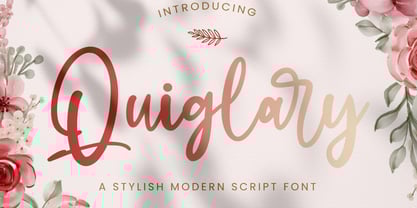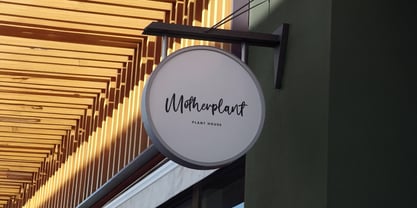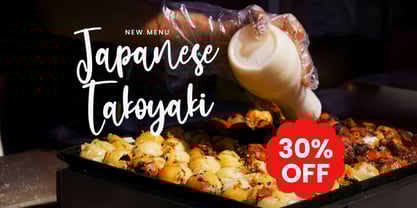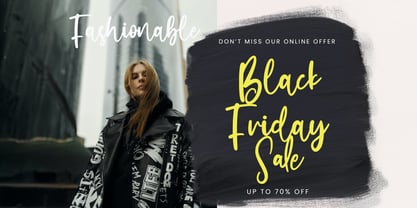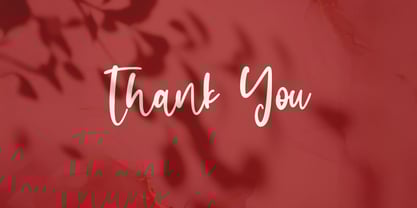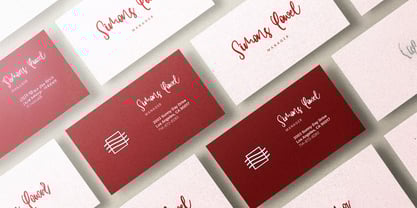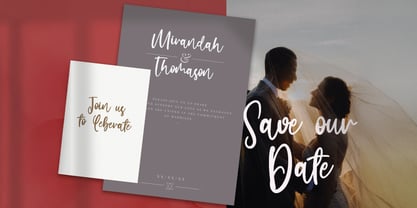
The Quiglary Font Family was designed by Virgiawan Listanto and published by Stringlabs Creative Studio. Quiglary contains 1 styles.
Quiglary is a graceful handwritten font that blends elegance with a touch of modern flair. Its smooth curves, flowing strokes, and organic feel make it perfect for designs that need a personal and refined touch. Whether you're working on wedding stationery, personal branding, or heartfelt quotes, Quiglary brings a soft, sophisticated charm to your creative projects.
Quiglary